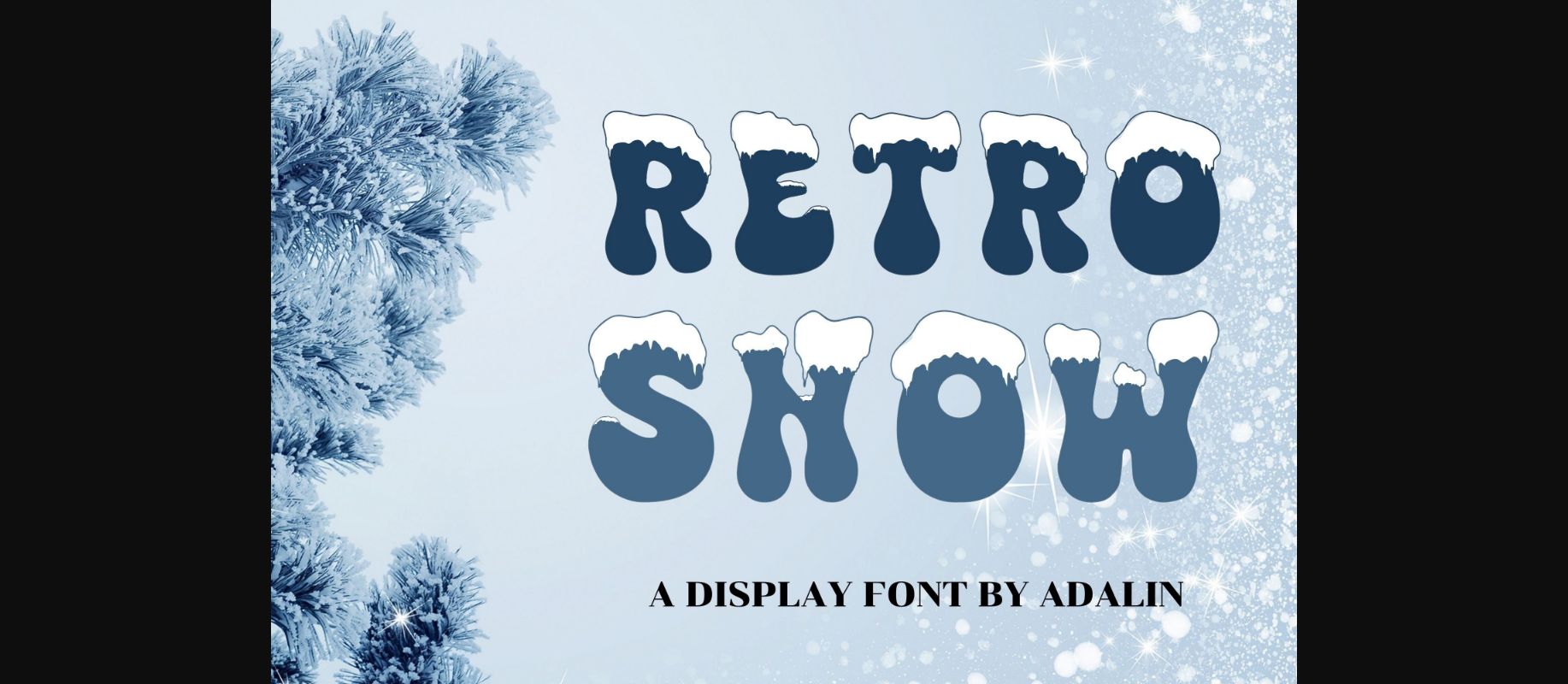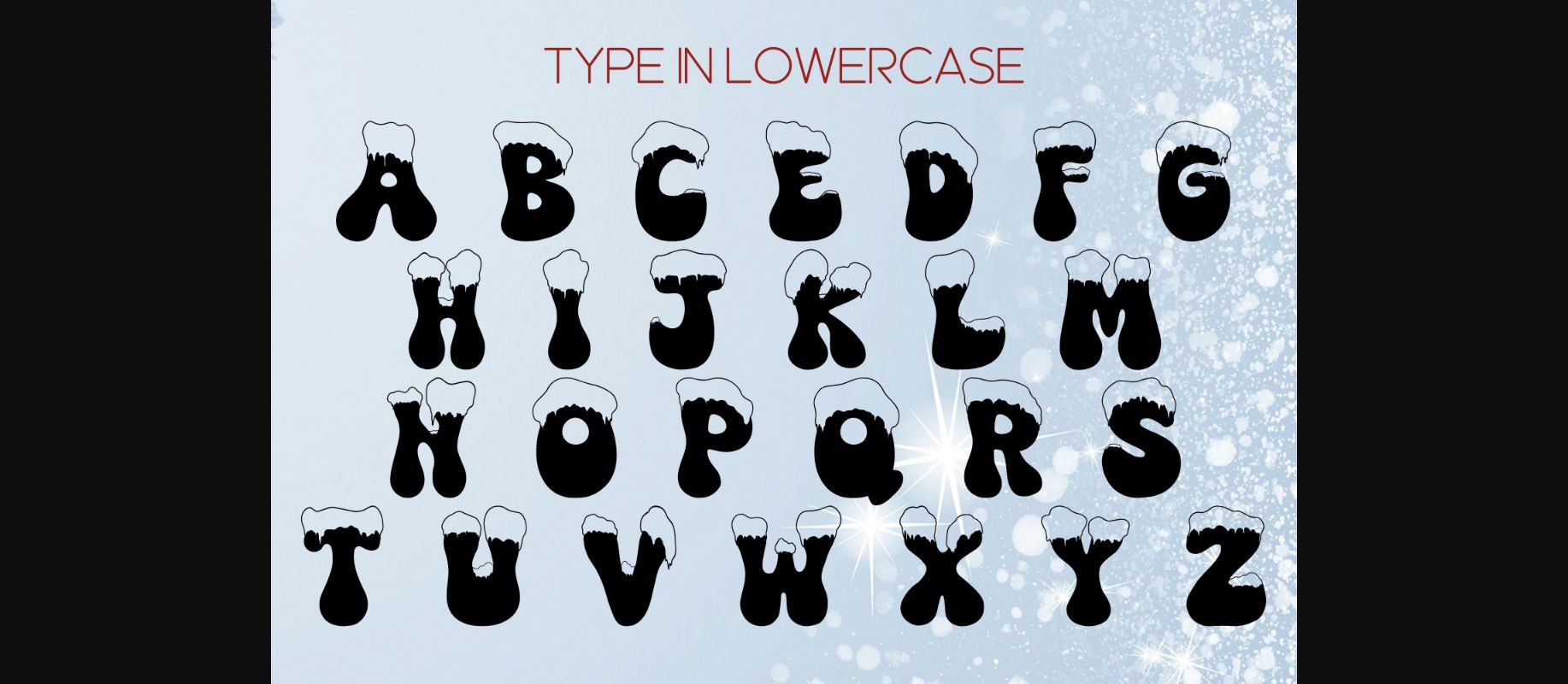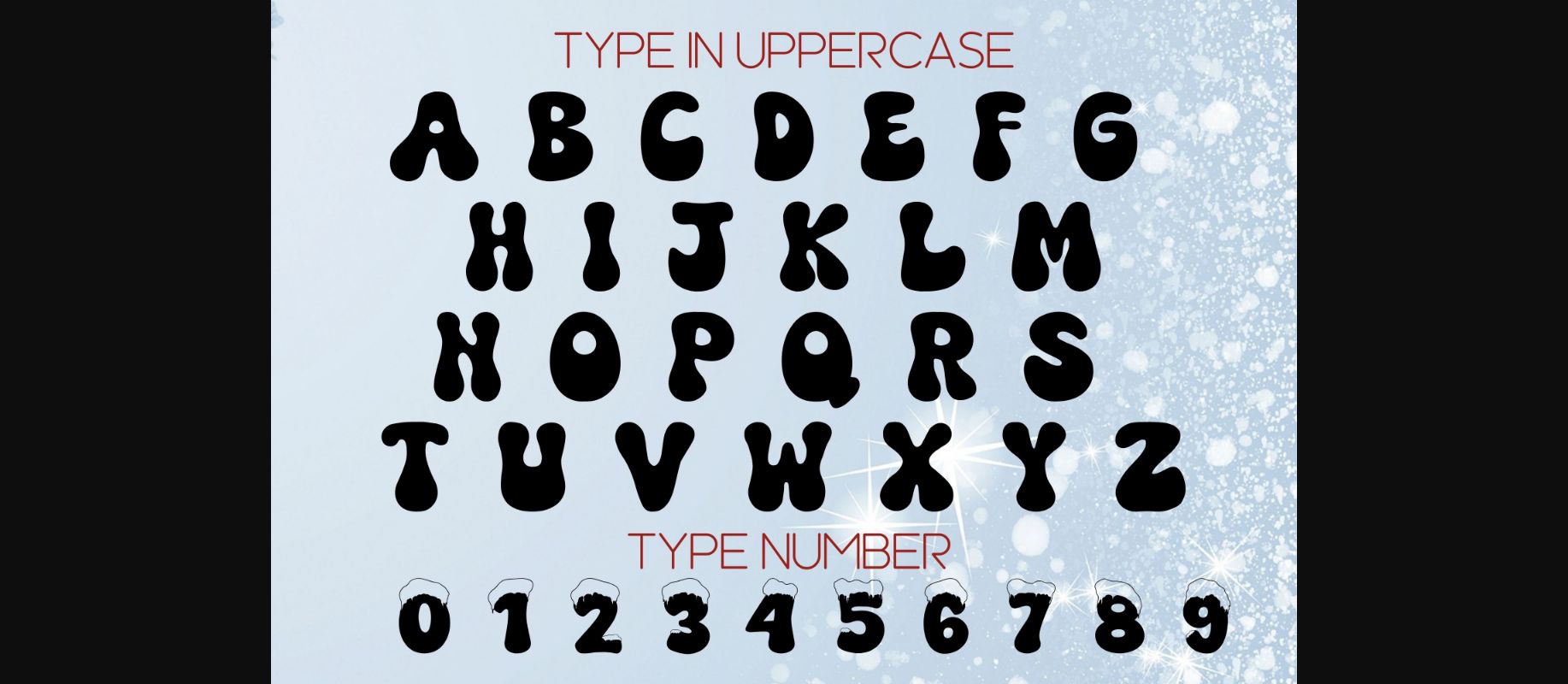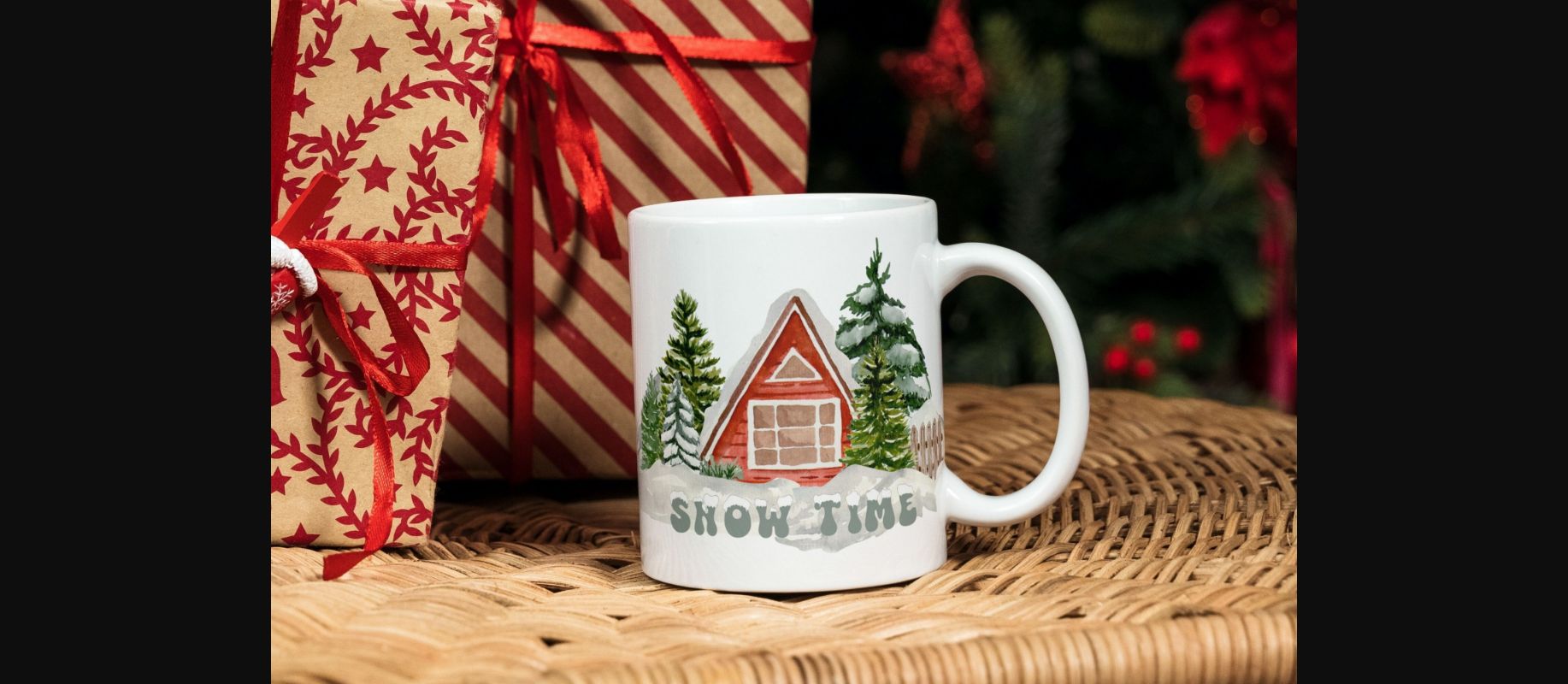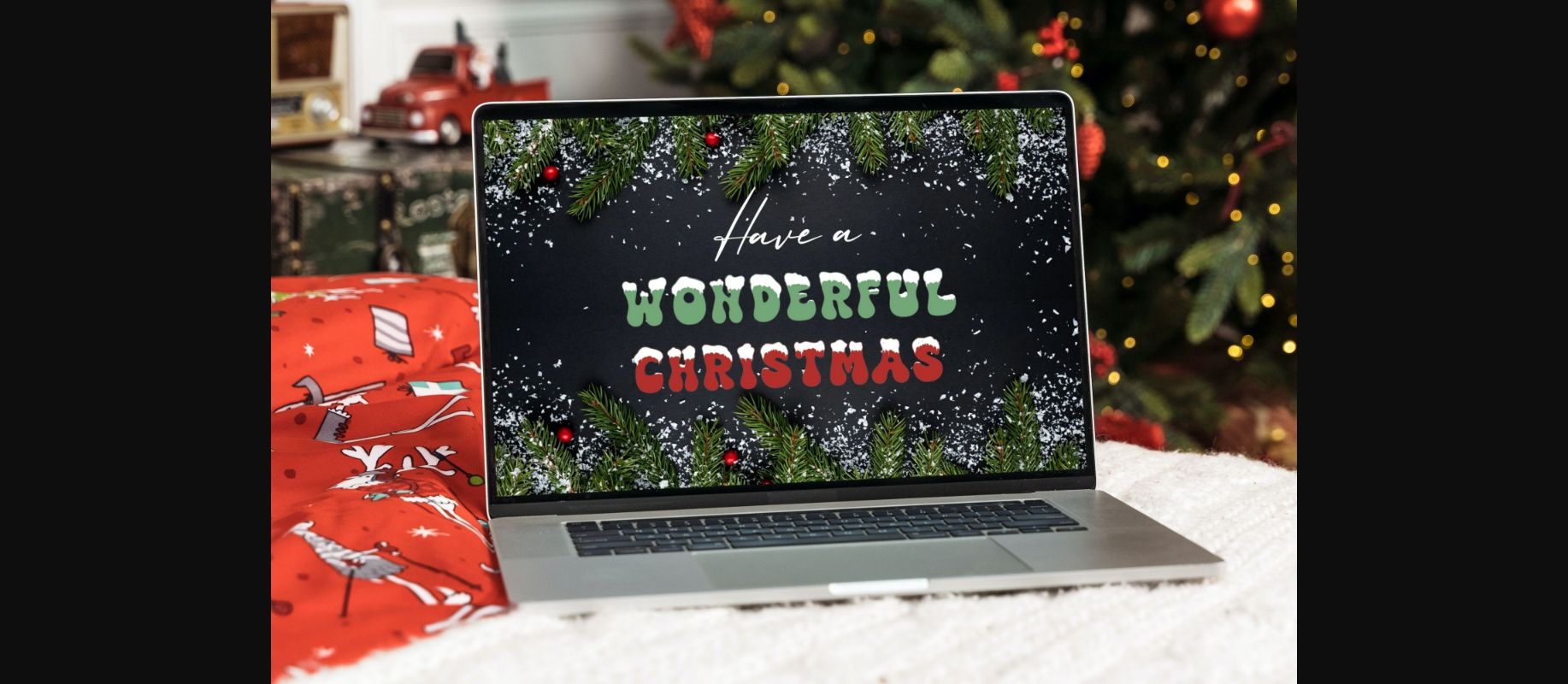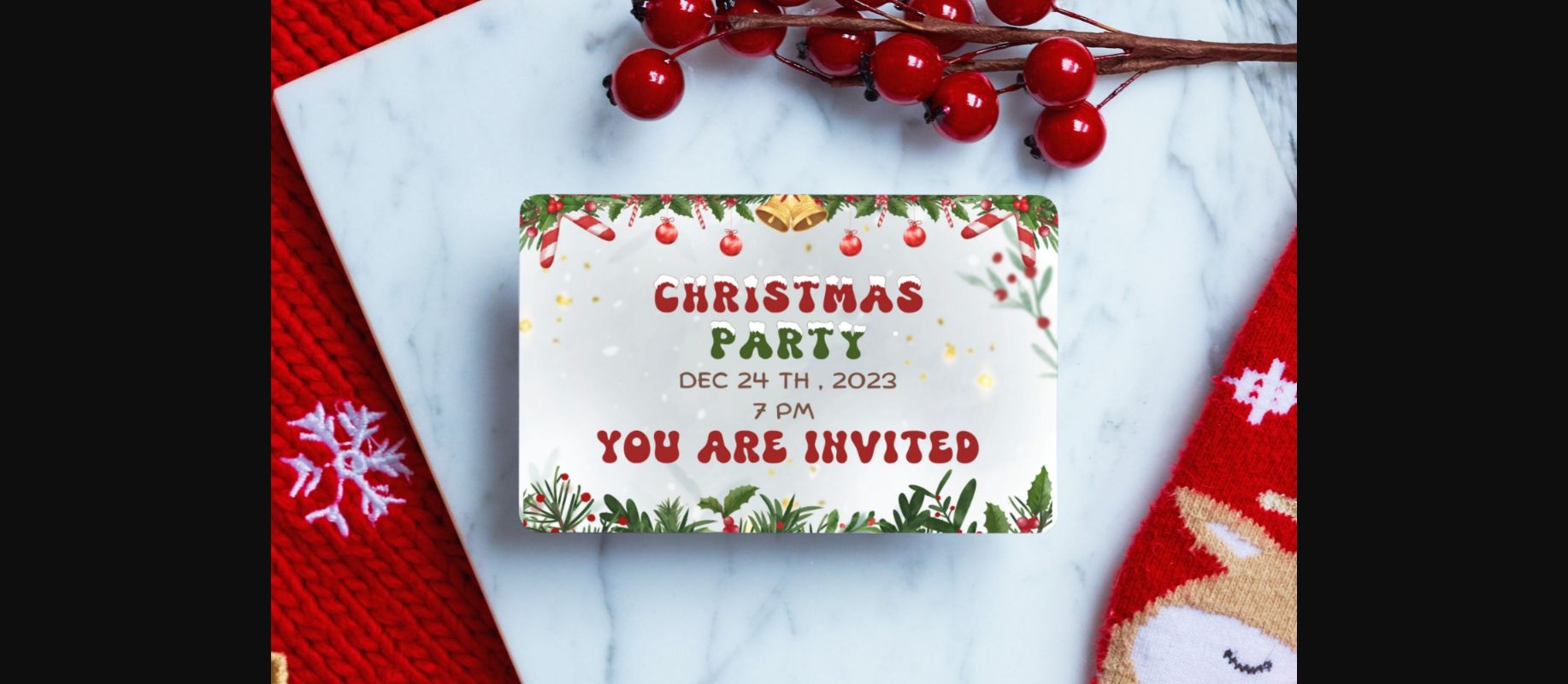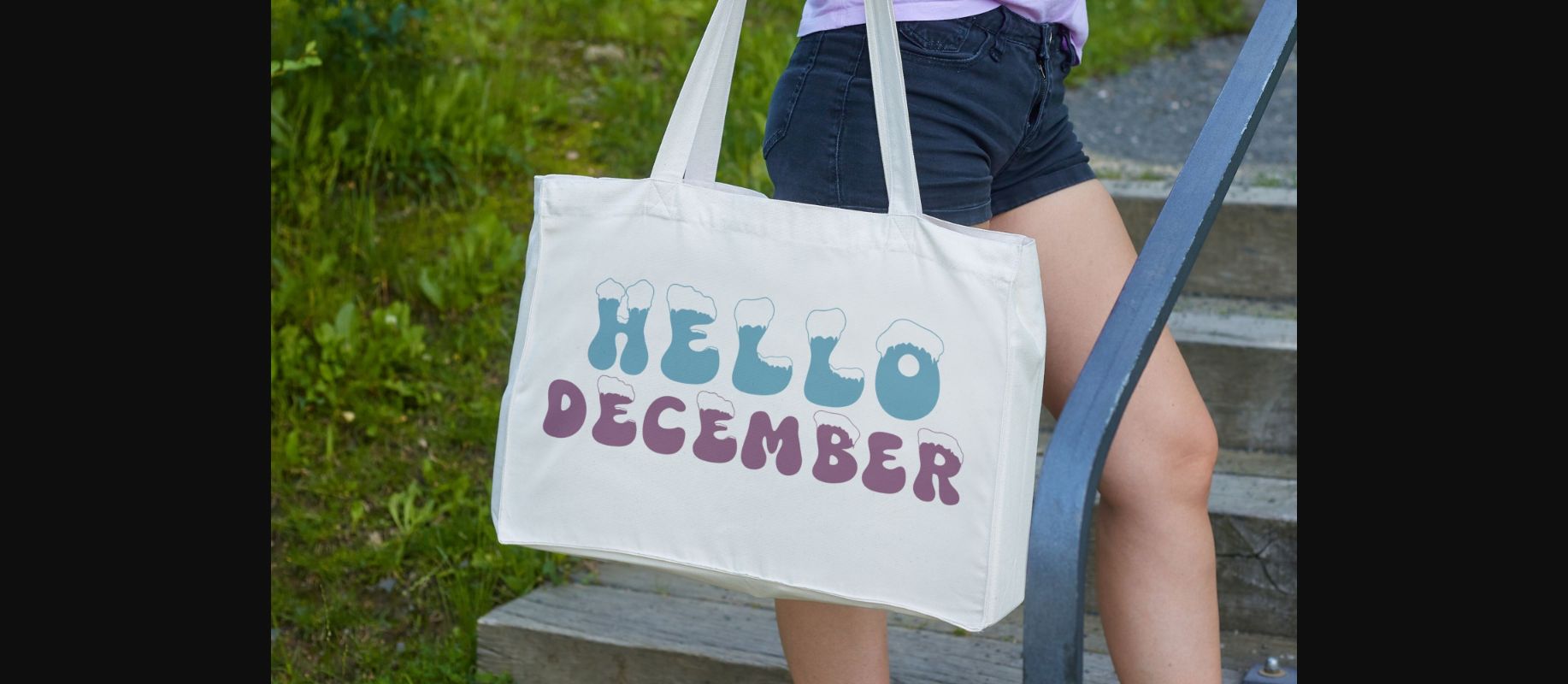
Retro Snow is a cute decorative Christmas Font ideal for crafting, and perfect for designs that need a playful, cheery accent. Daisy Retro is suitable for book covers, posters, packaging, merchandise, logotypes, and many more!